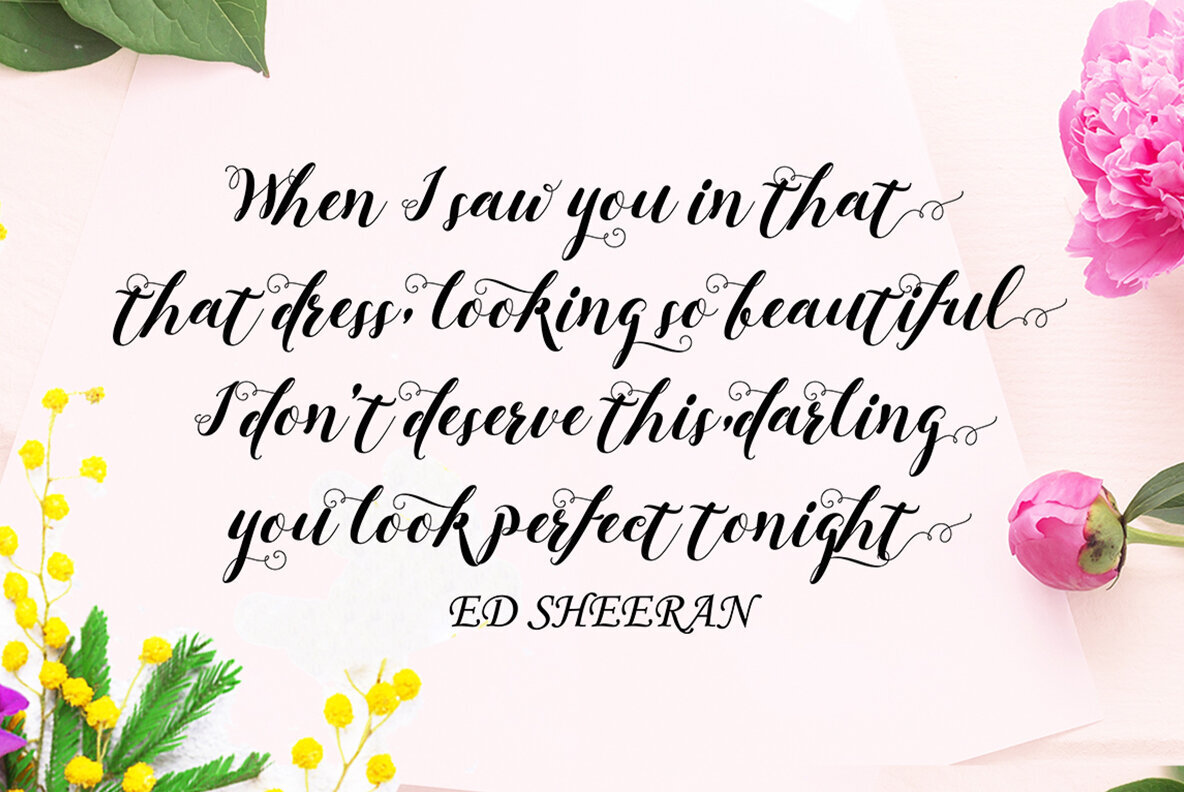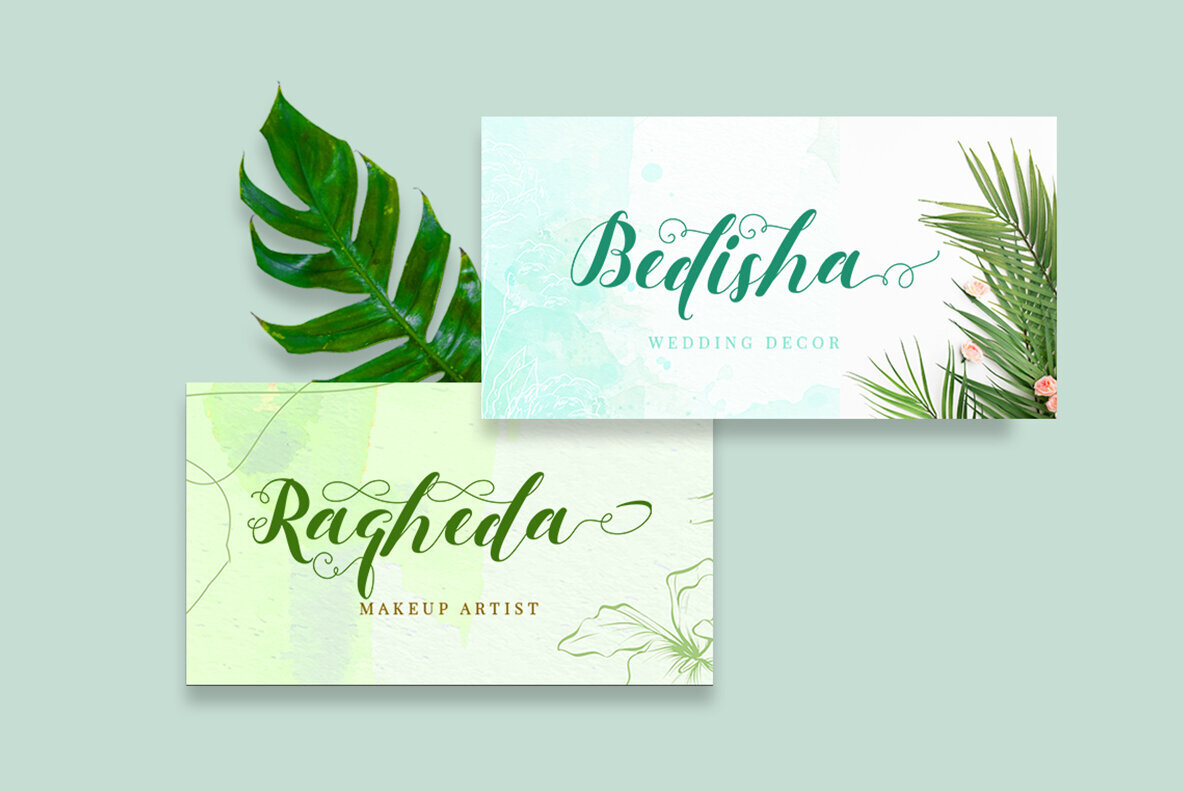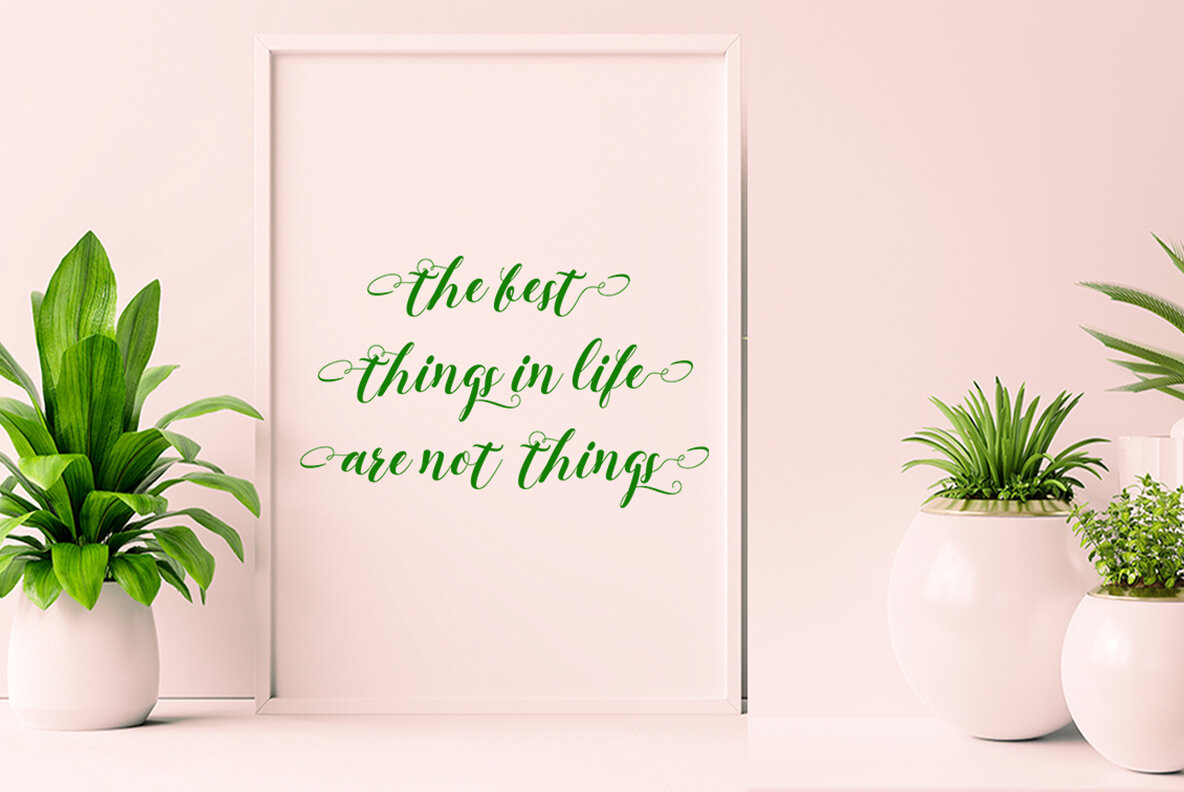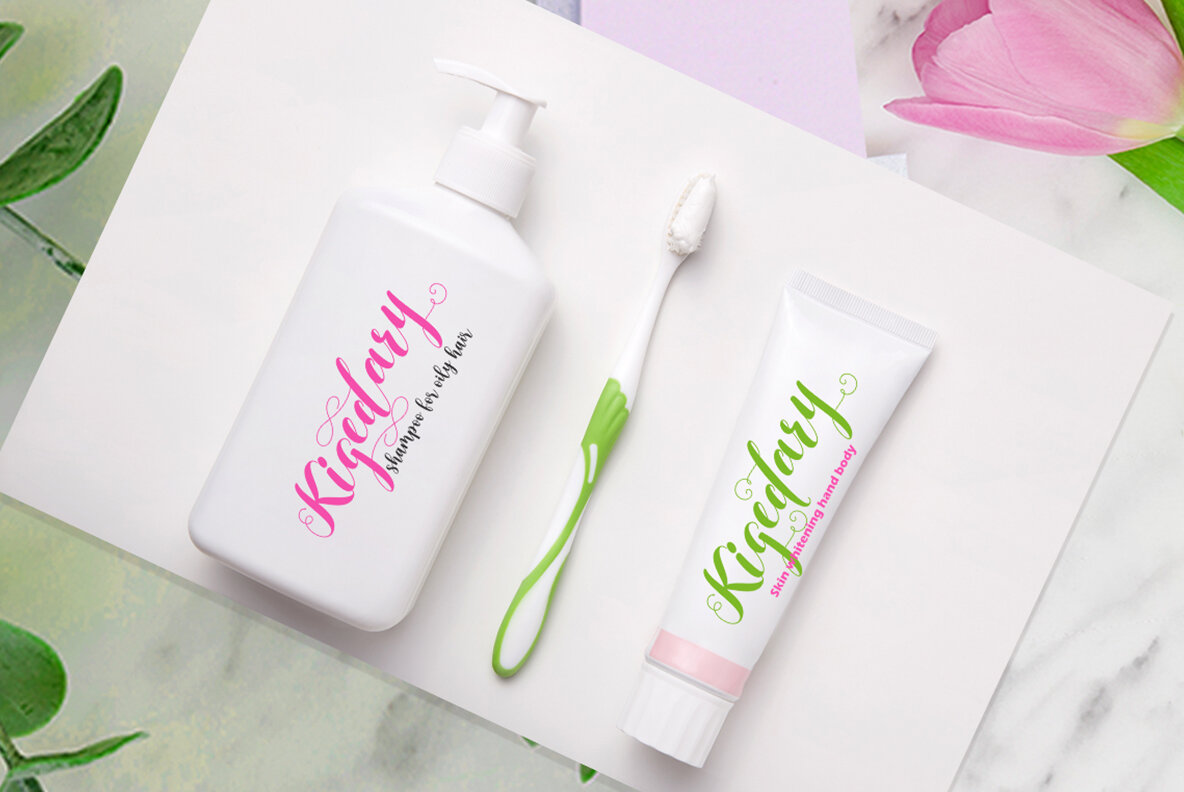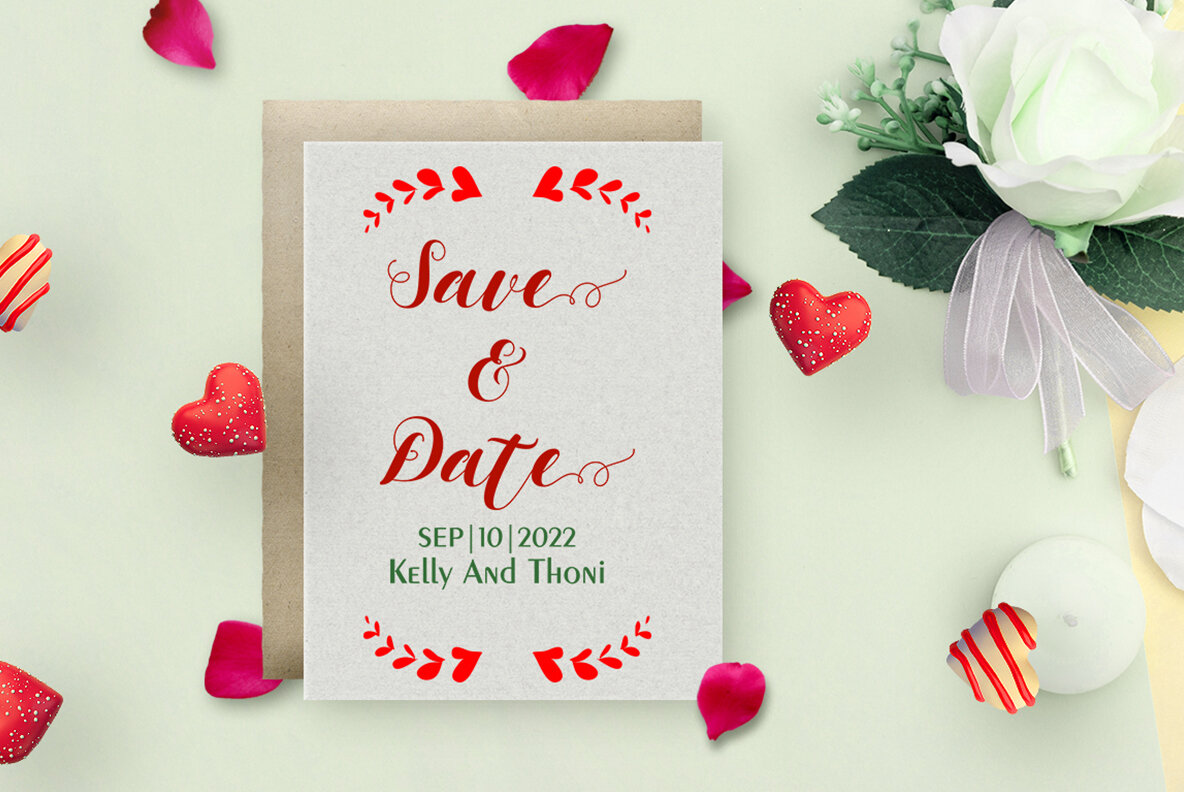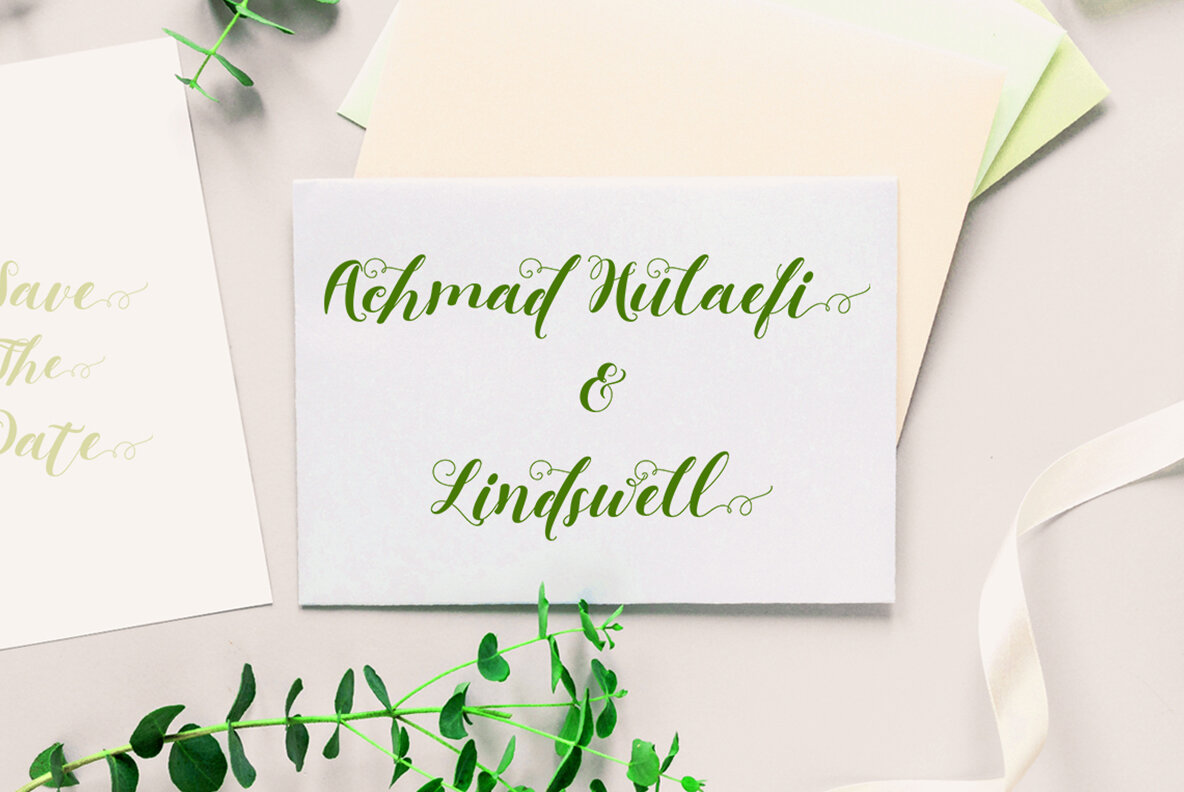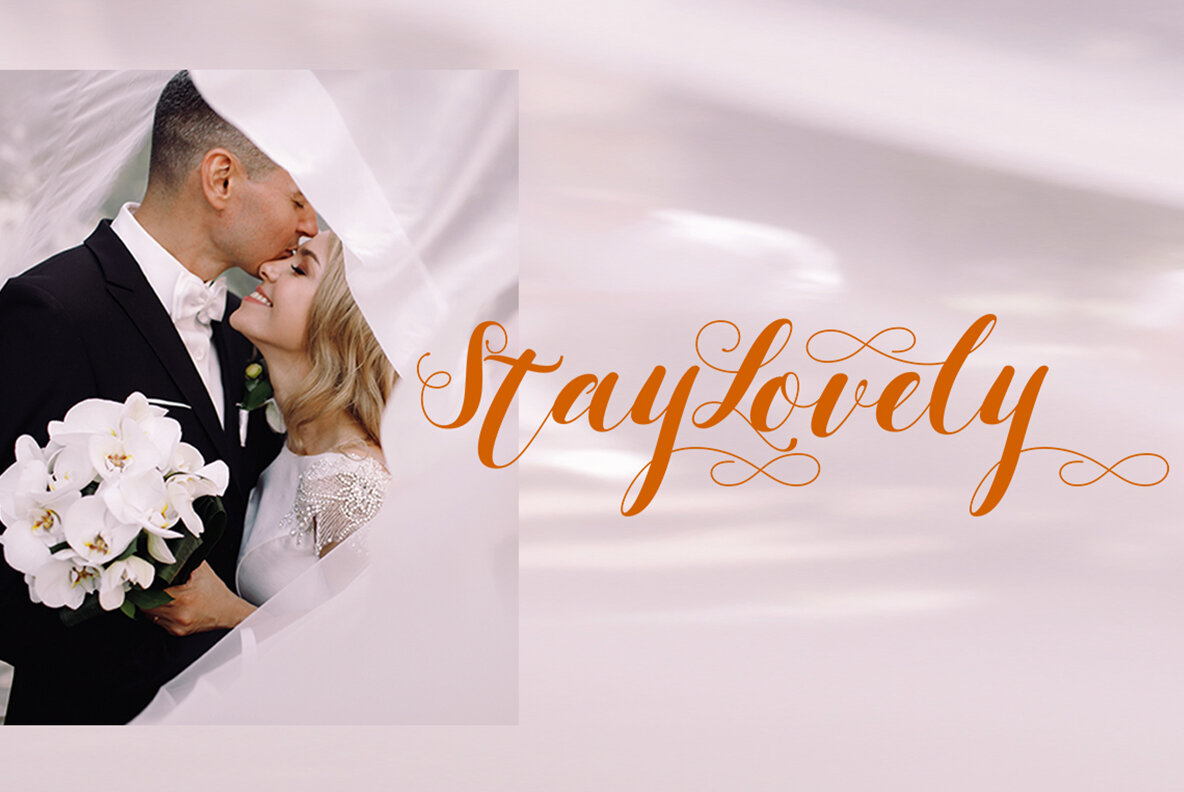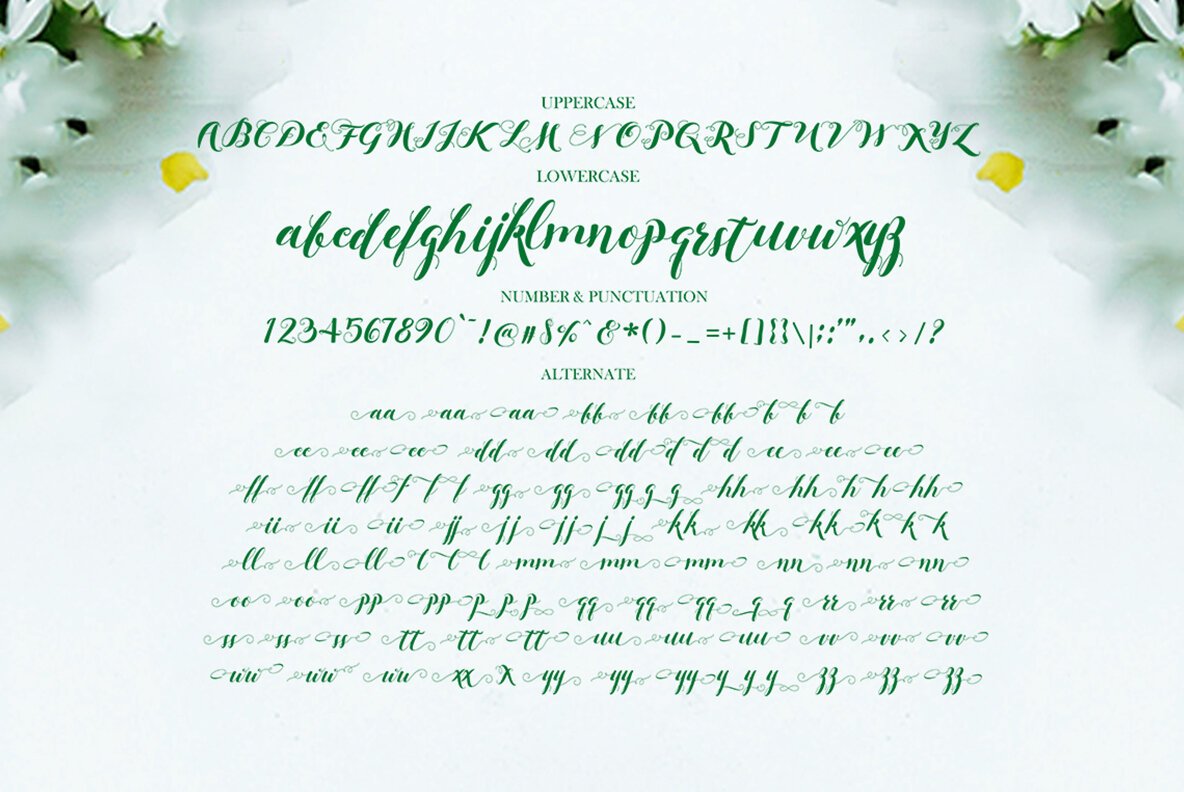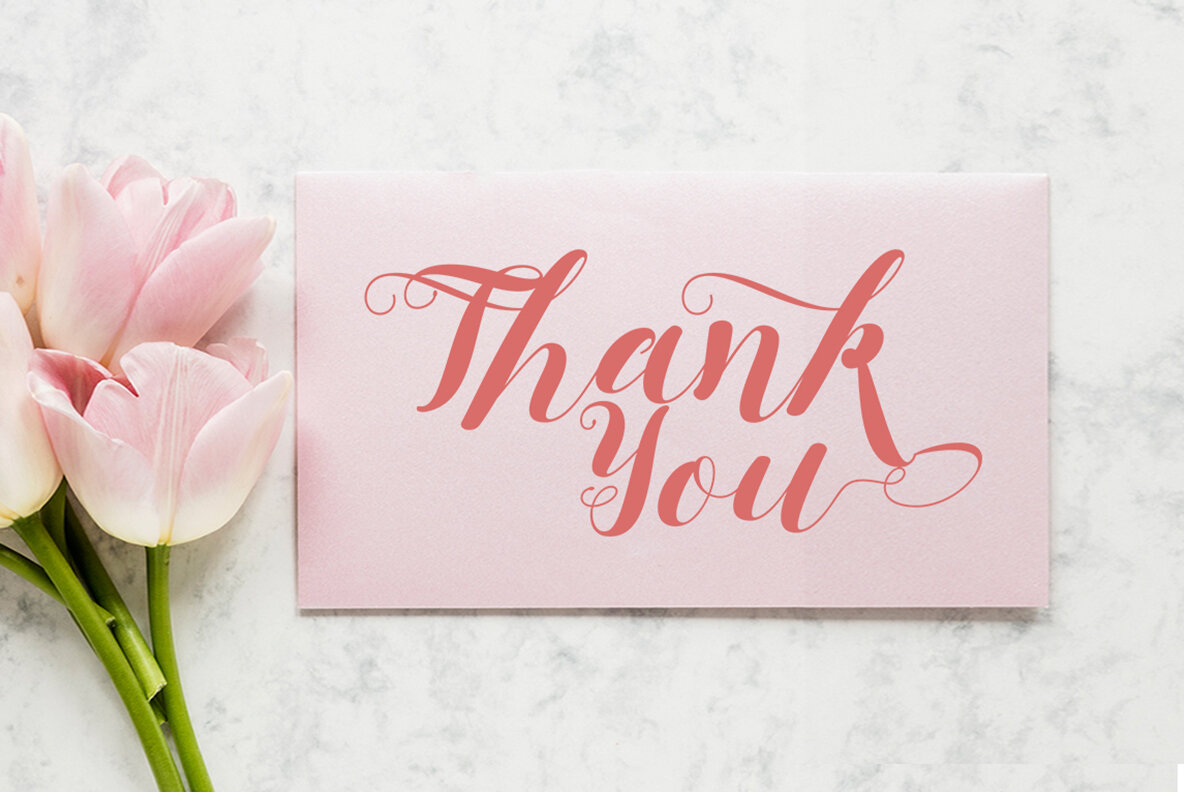
Kadupul Flowers Font
Kadupul Flowers Regular
Kadupul Flowers is an incredibly unique handwritten font that seamlessly blends modern calligraphy with natural style. Inspired by the popular flower of the same name, it is designed to elevate your creative projects by adding a touch of elegance and uniqueness to any design. With its varied baseline, gorgeous glyphs, and stunning alternatives, this font is crafted to become a favorite in your collection. Kadupul Flowers includes OpenType stylistic alternates and ligatures, which can be accessed through programs like Adobe Illustrator CS, Adobe InDesign, CorelDraw X6-X7, and Microsoft Word 2010 or later. Additionally, the font is coded with PUA Unicode, granting full access to all extra characters without the need for special software. Mac users can use Font Book, while Windows users can utilize Character Map to view and copy characters into their preferred text editors or applications.Kadupul Flowers: Handwritten Font with Natural Style